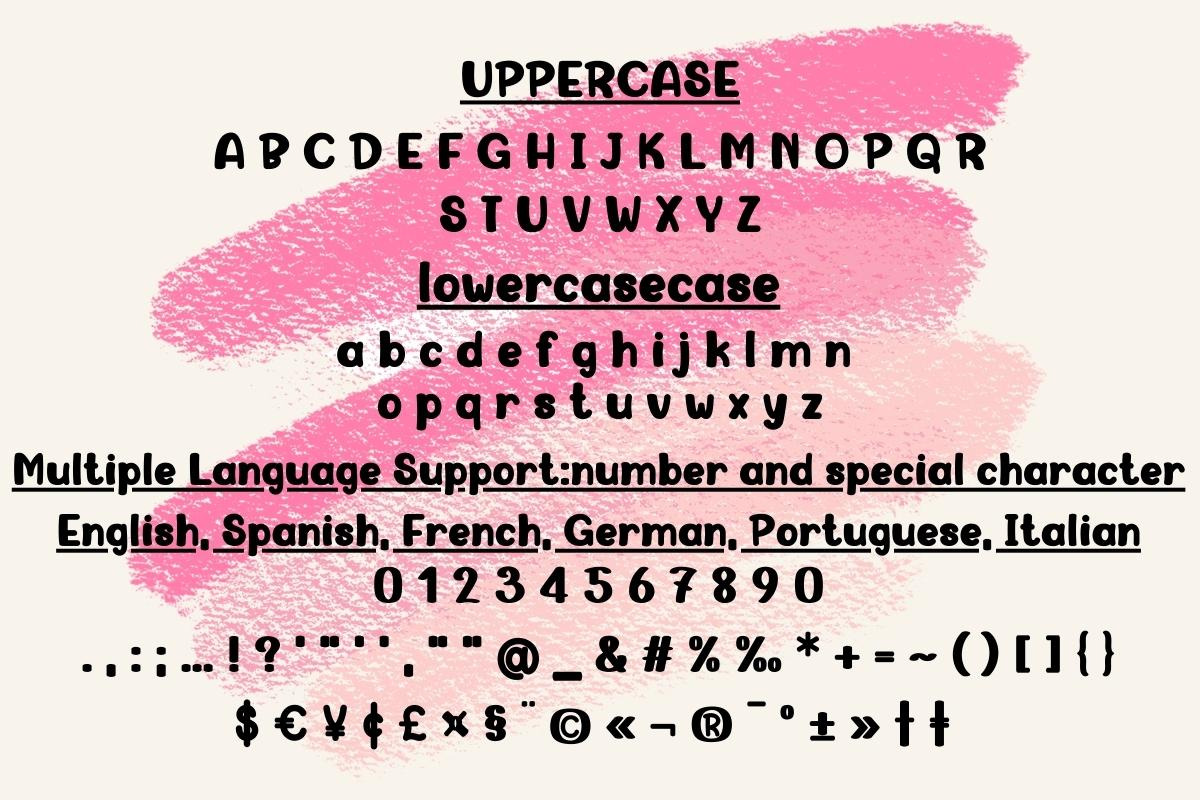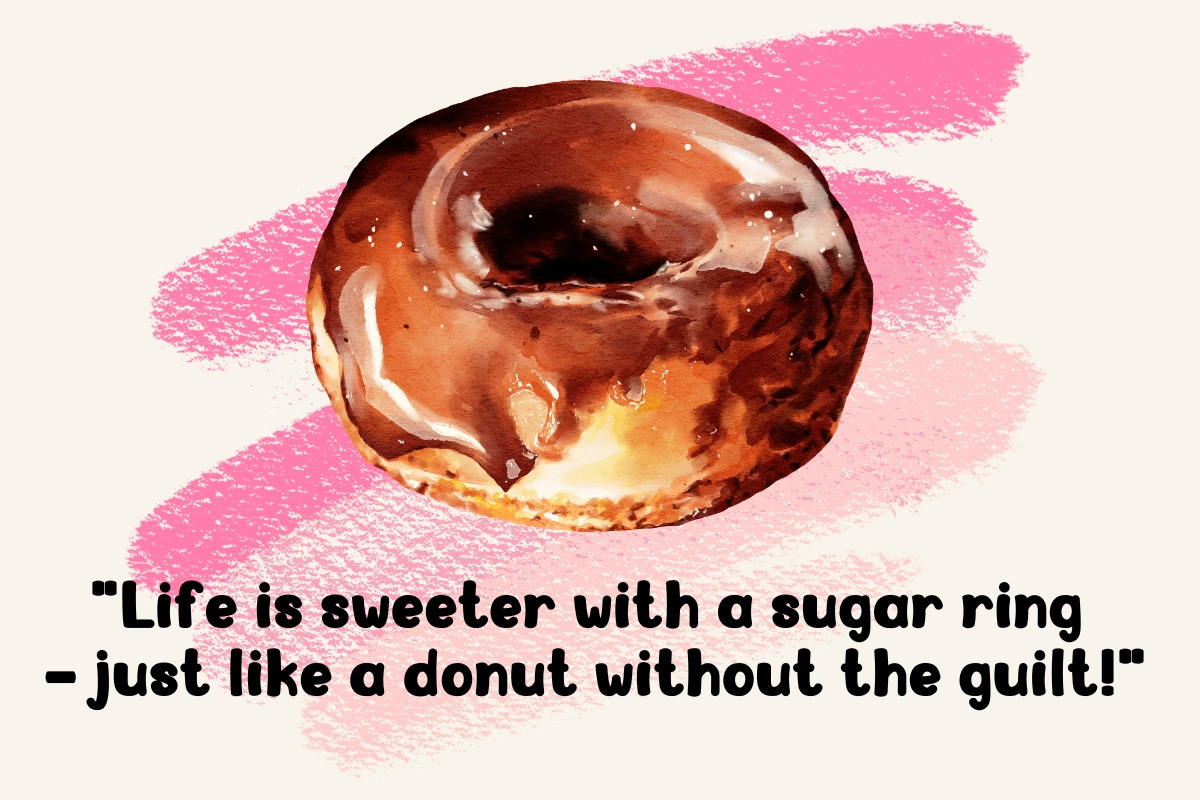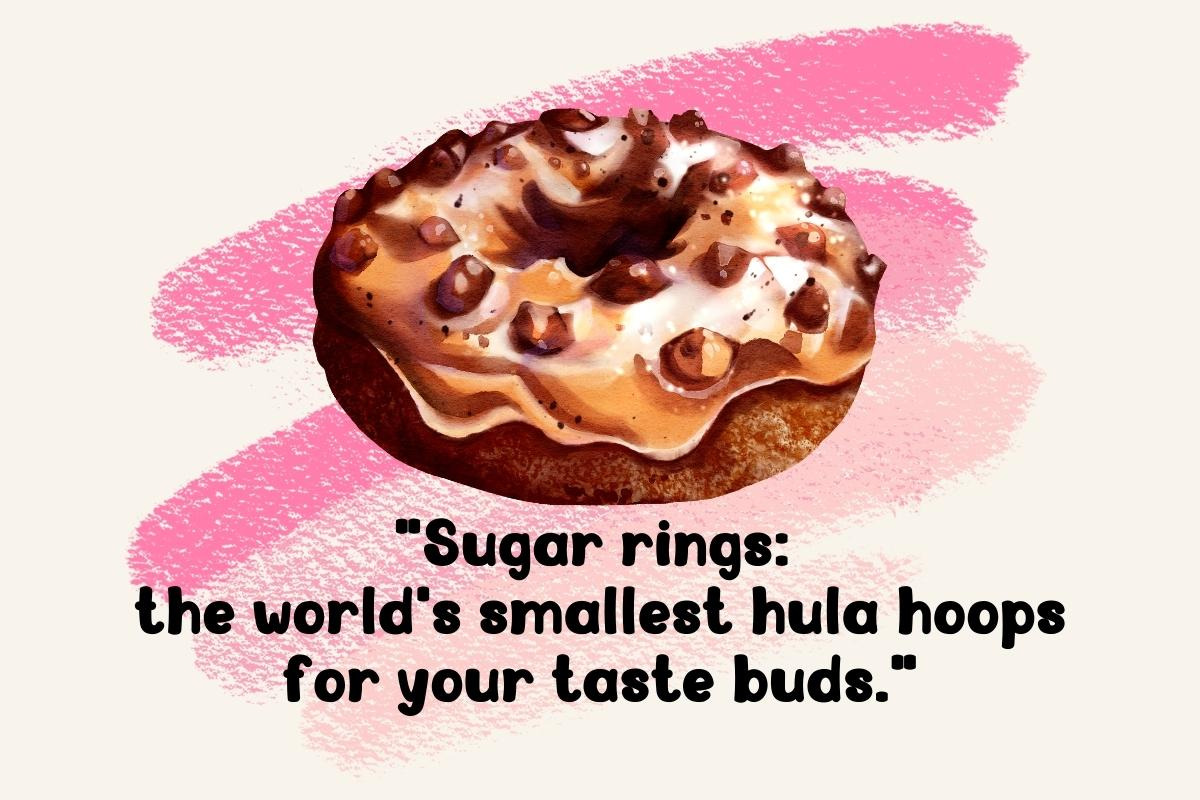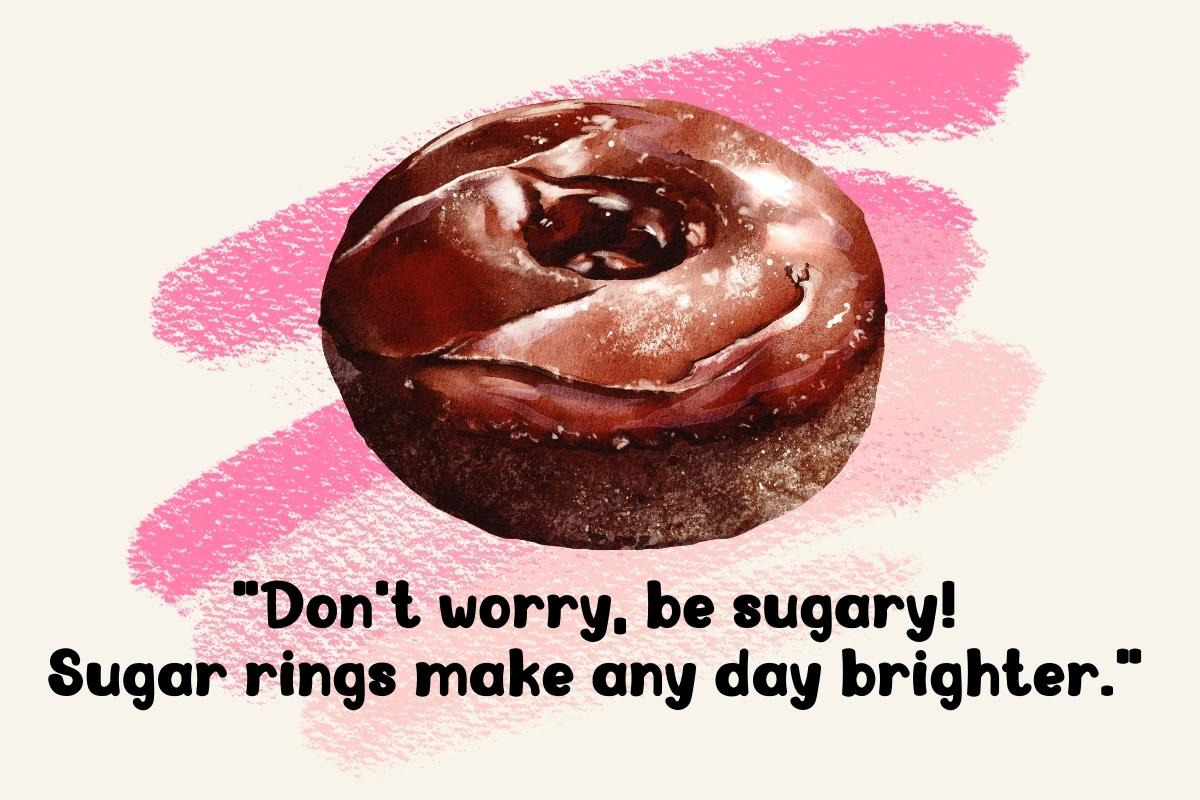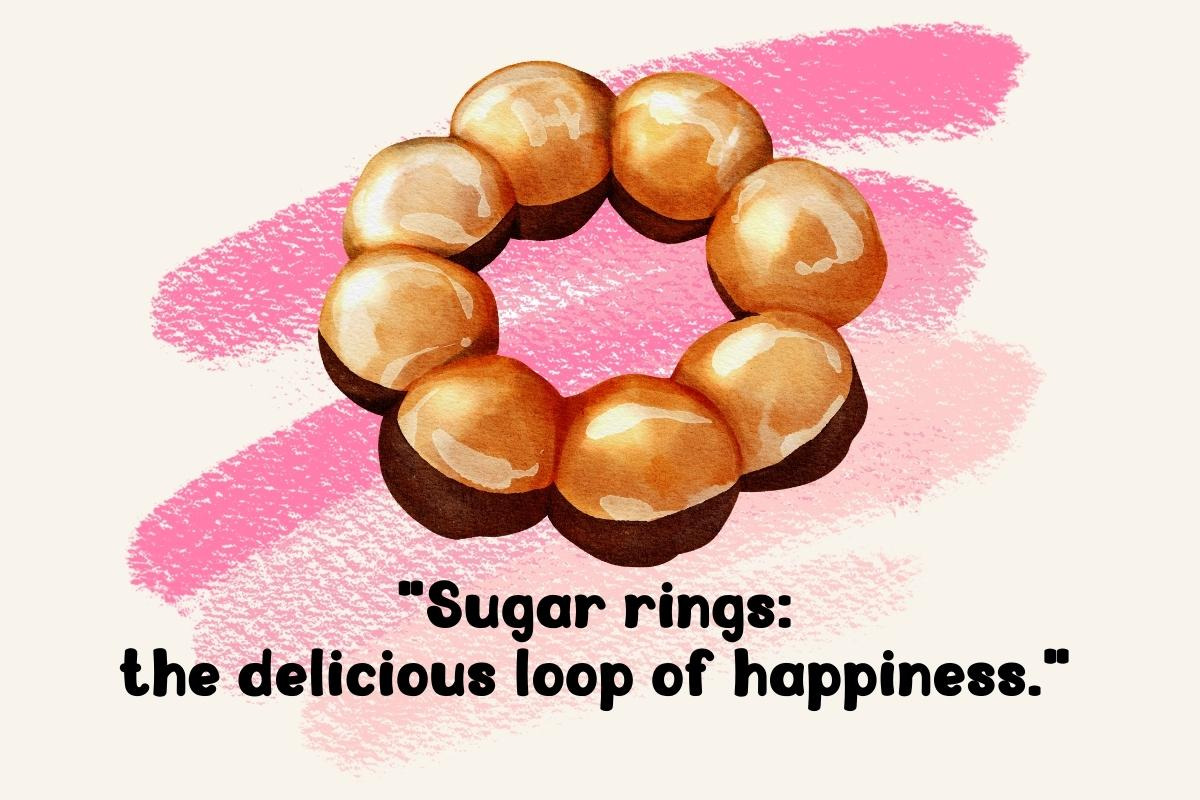
Sugar Ring - Script Handwritten
Embrace the enchanting allure of "Sugar Ring" – a versatile script font that effortlessly transitions from elegant to casual, making it the ultimate choice for any project. Whether you need a display font to captivate your audience or a handwritten font to infuse personality into your designs, Sugar Ring adds a touch of sweetness to every creation. Elevate your typography game with Sugar Ring and let your imagination flourish!